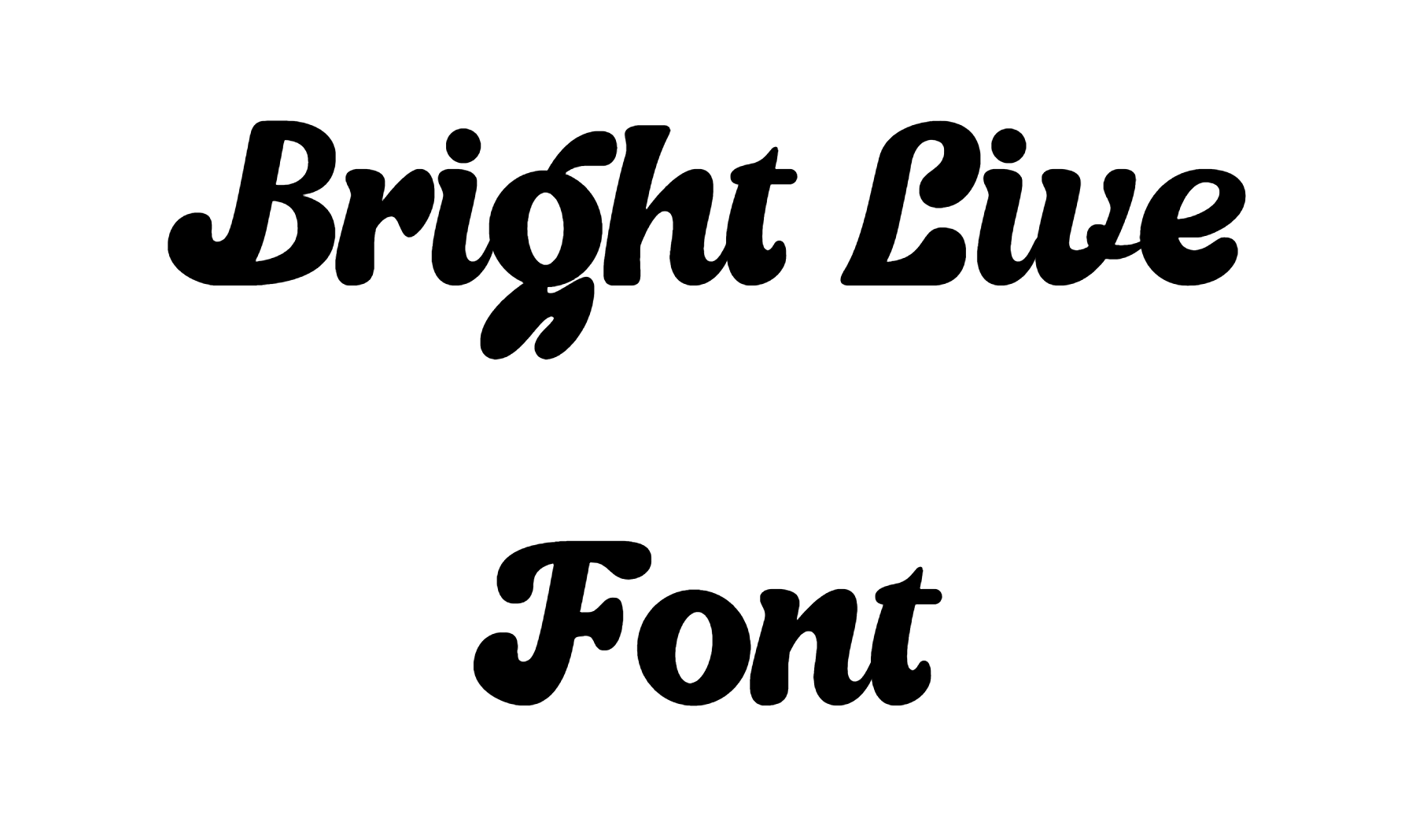
Bright Live
Bright Live is a cartoon font made by Heyfonts. It has a cheerful, hand-drawn look that makes people smile before they even read the words. You can download it for free and test it with your own words in the preview above.
With complete upper and lowercase letters and all ten digits, Bright Live is ready for real wording, not just a single headline. Punctuation is limited, so look at the character map if you need a specific symbol. It doesn't include accented letters such as é or ñ, which makes it an English-only font.
Think of Bright Live for kids' books, birthday invites and fun YouTube thumbnails. Cartoon fonts are great for short, fun lines. If you place it over a busy photo, add a thick outline or a drop shadow so it stays readable.
No. Bright Live has no accented letters such as é, ñ or ü, so it's best for English text.